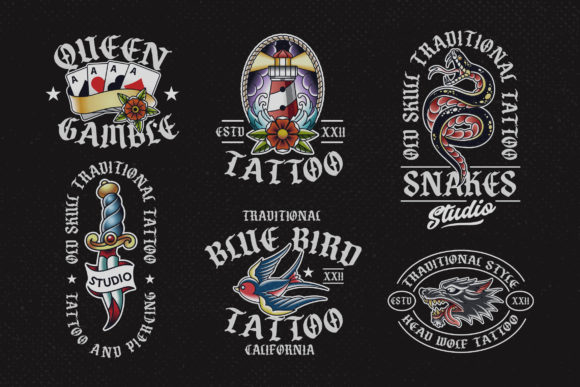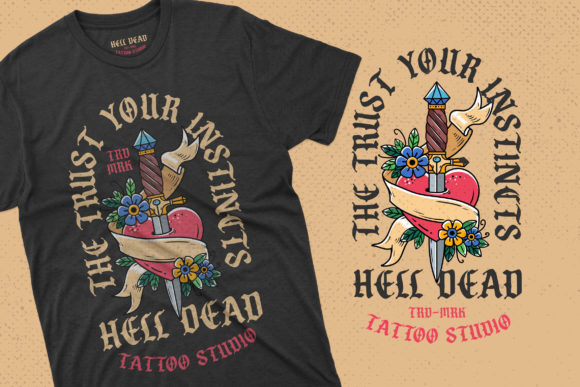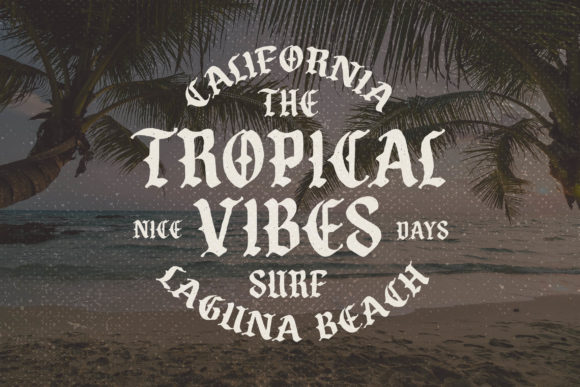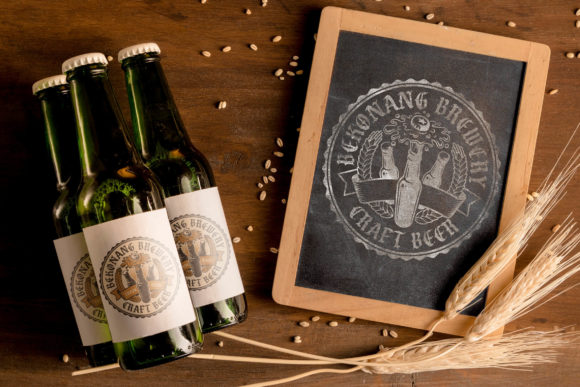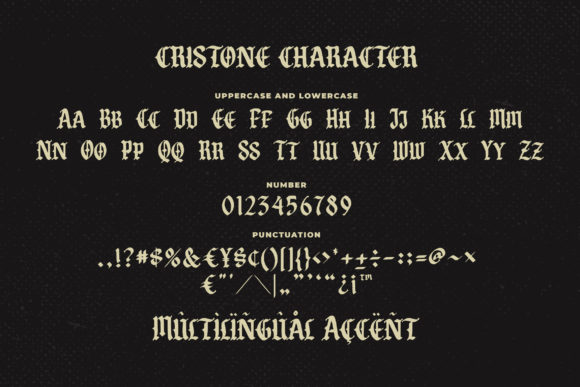
Cristone Font: The Ultimate Blackletter Font for Bold Designs
Are you looking for a font that can add a touch of edginess and sophistication to your designs? Look no further than Cristone Font, a cool, bold, and imposing blackletter font that’s perfect for a wide range of creative projects. In this article, we’ll take a closer look at Cristone Font, its features, and how you can use it to elevate your designs.
What is Cristone Font?
Cristone Font is a blackletter font that’s designed to make a statement. Its bold and imposing strokes are perfect for creating eye-catching labels, branding, logos, and more. This distinct font is sure to grab attention and leave a lasting impression on your audience. Whether you’re a designer, crafters, or DIY enthusiast, Cristone Font is a great addition to your font collection.
Key Features of Cristone Font
- Bold and Imposing: Cristone Font features bold and imposing strokes that are perfect for creating eye-catching designs.
- Blackletter Style: This font is designed in a traditional blackletter style, which gives it a unique and distinctive look.
- Versatile: Cristone Font can be used for a wide range of creative projects, including labels, branding, logos, and more.
- Easy to Read: Despite its bold style, Cristone Font is easy to read, making it perfect for use in titles, headings, and other design elements.
How to Use Cristone Font in Your Designs
Cristone Font is a versatile font that can be used in a variety of creative projects. Here are some ideas to get you started:
- Labels and Packaging: Use Cristone Font to create eye-catching labels and packaging that stands out on store shelves.
- Branding and Logos: Create a bold and memorable brand identity with Cristone Font. It’s perfect for logos, business cards, and other marketing materials.
- Signage and Posters: Use Cristone Font to create eye-catching signage and posters that grab attention.
- Digital Designs: Cristone Font can also be used in digital designs, such as social media graphics, website headers, and more.
Tips for Using Cristone Font Effectively
Here are some tips for using Cristone Font effectively in your designs:
- Use it Sparingly: Cristone Font is a bold font, so use it sparingly to avoid overwhelming your design.
- Pair it with Other Fonts: Pair Cristone Font with other fonts to create a unique and interesting contrast.
- Adjust the Size: Experiment with different font sizes to find the perfect balance for your design.
- Play with Colors: Cristone Font looks great in a variety of colors, so experiment with different colors to find the one that works best for your design.
Cristone Font is a cool, bold, and imposing blackletter font that’s perfect for designers, crafters, and DIY enthusiasts. Its versatility and ease of use make it a great addition to any font collection. With its bold and eye-catching style, Cristone Font is sure to elevate your designs and leave a lasting impression on your audience. So why wait? Download Cristone Font today and start creating bold and memorable designs!